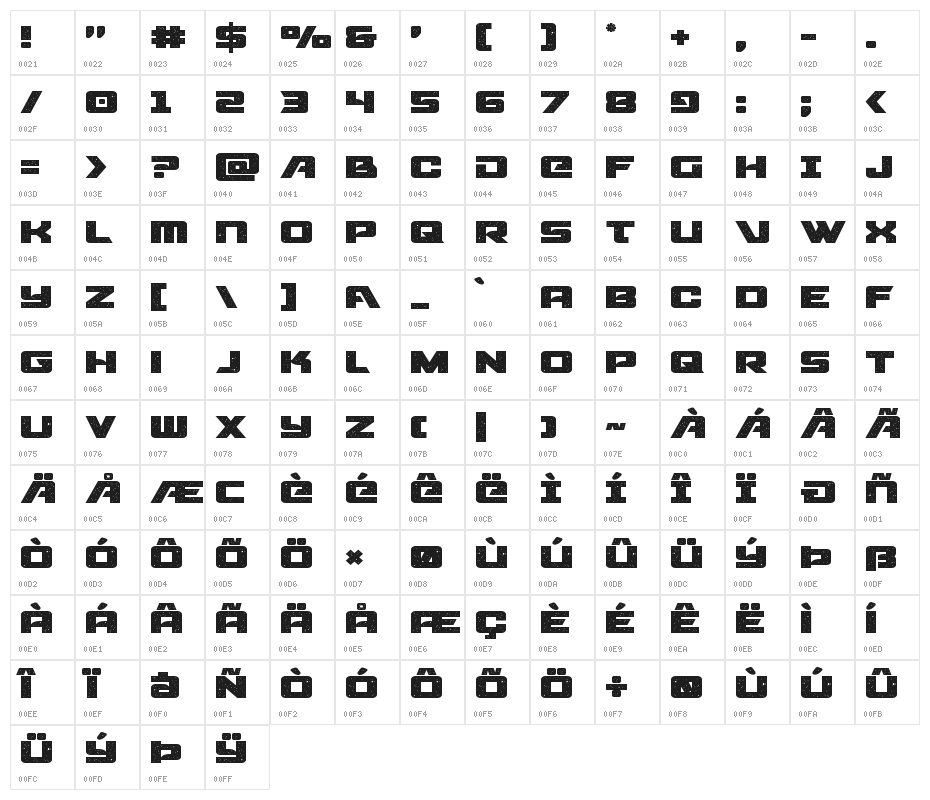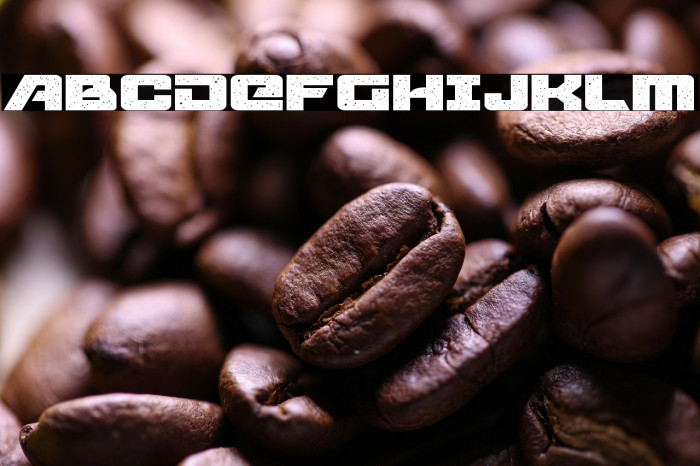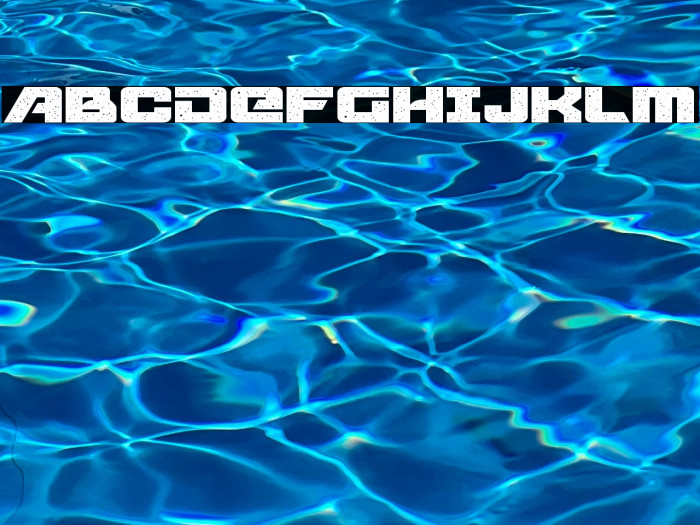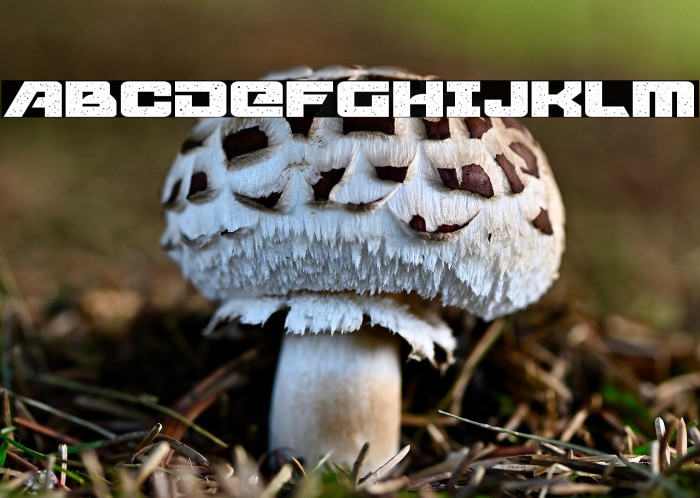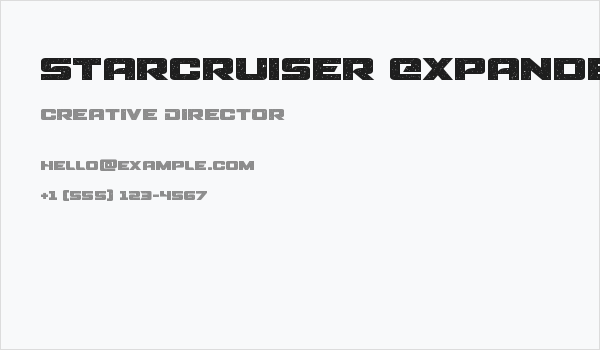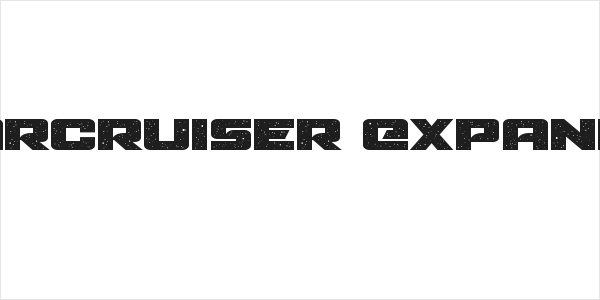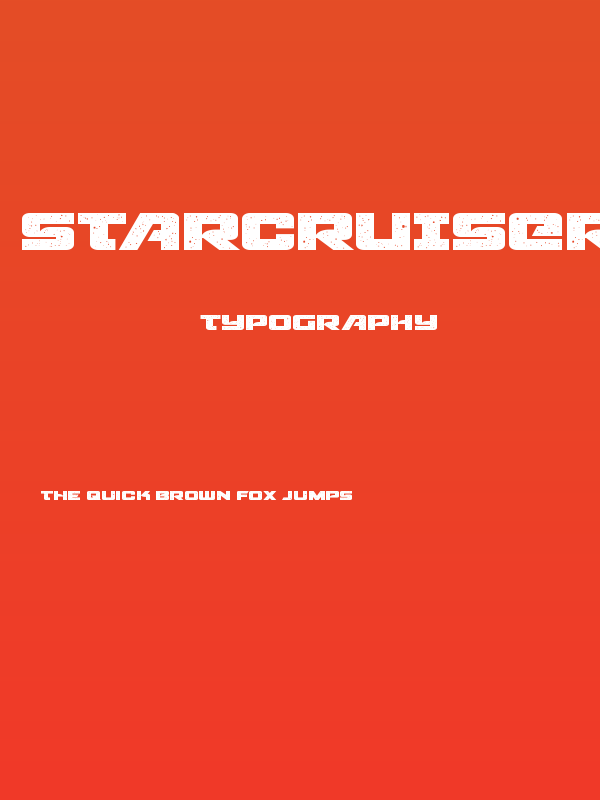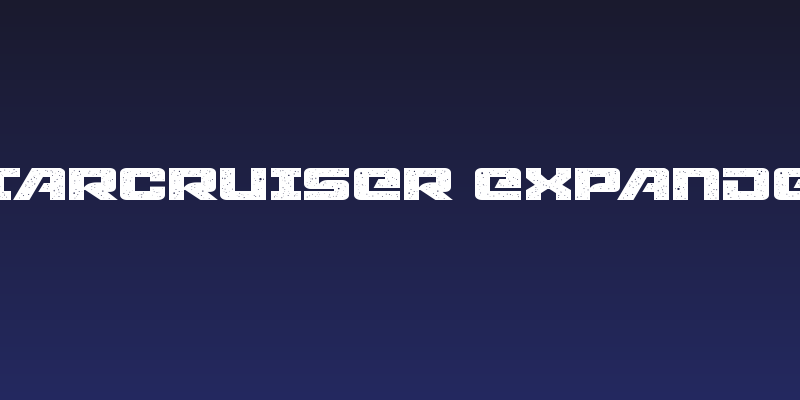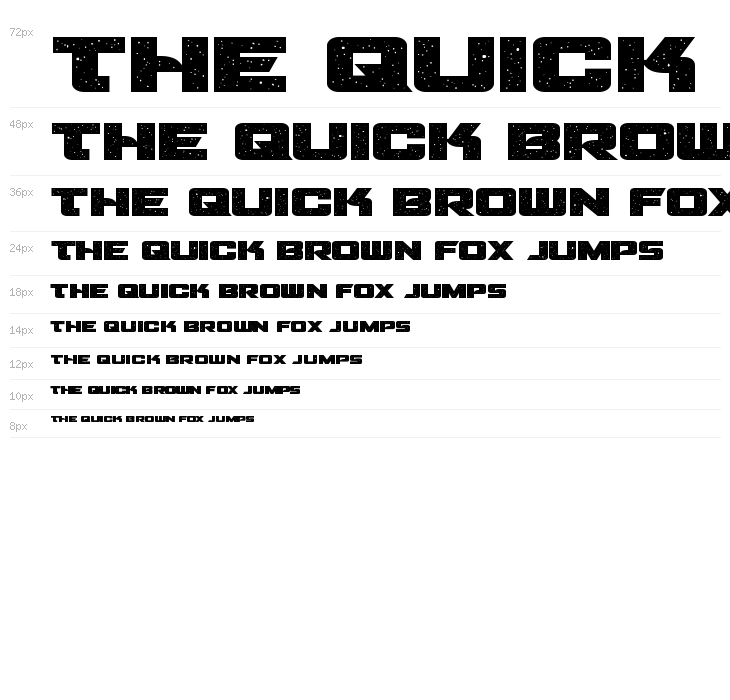
Starcruiser Expanded Font
Starcruiser Expanded Description
This font features a bold, futuristic design with a distinct space-themed aesthetic. The characters are blocky and geometric, with a unique pattern of small, scattered dots reminiscent of stars or cosmic dust. This gives the font a textured appearance, adding depth and interest. The uppercase letters are uniform in height, while the numbers and special characters maintain the same stylistic elements, ensuring consistency across all glyphs. The overall design is striking and eye-catching, making it ideal for projects that require a bold statement.
| Overall Style | Futuristic, Decorative |
| Proposed Projects | Ideal for sci-fi themed posters, video game titles, movie credits, and space-related branding. |